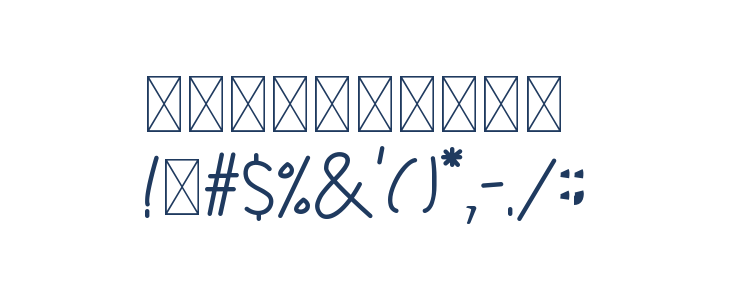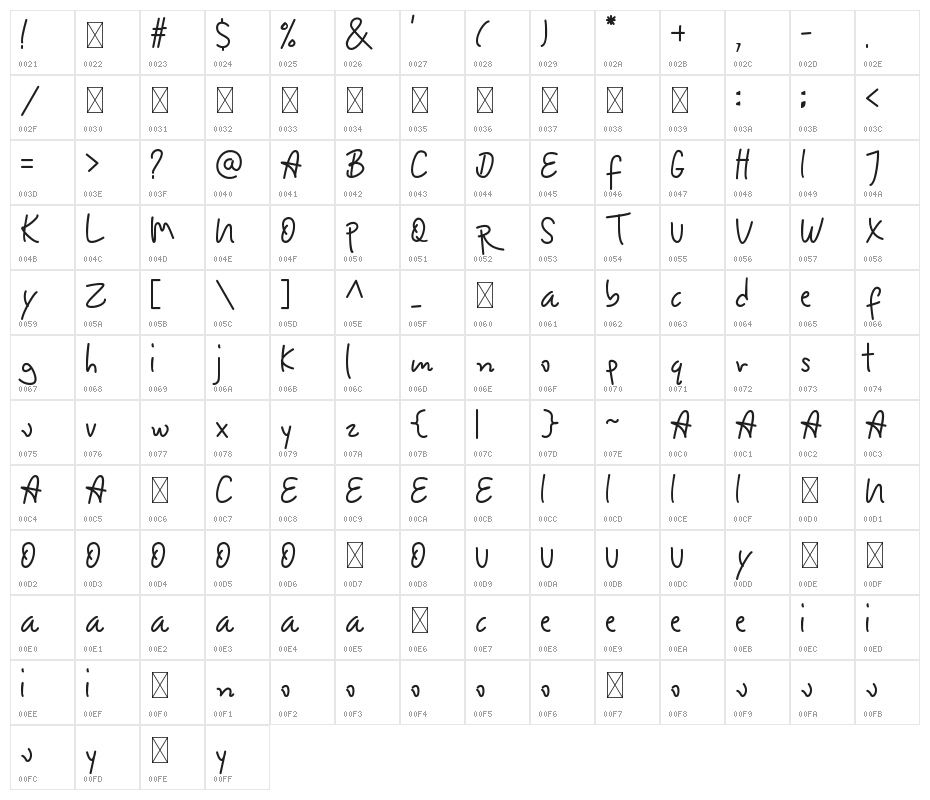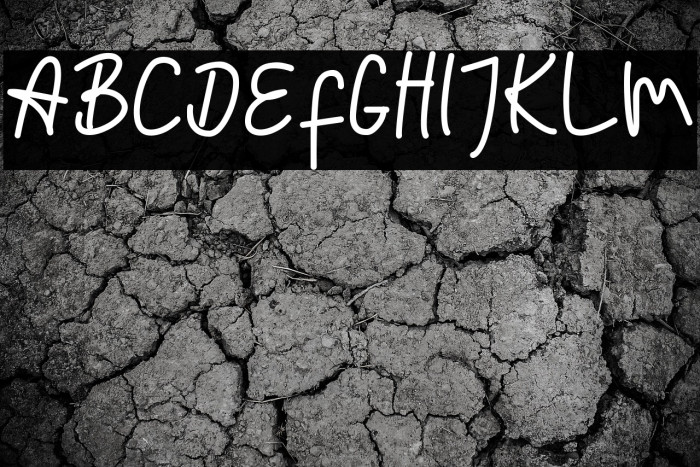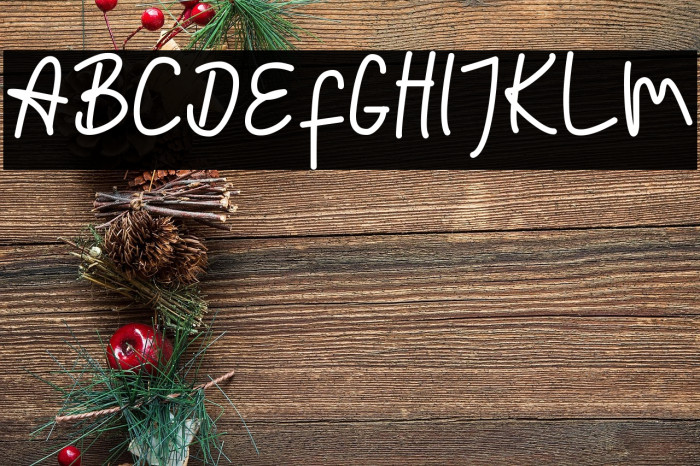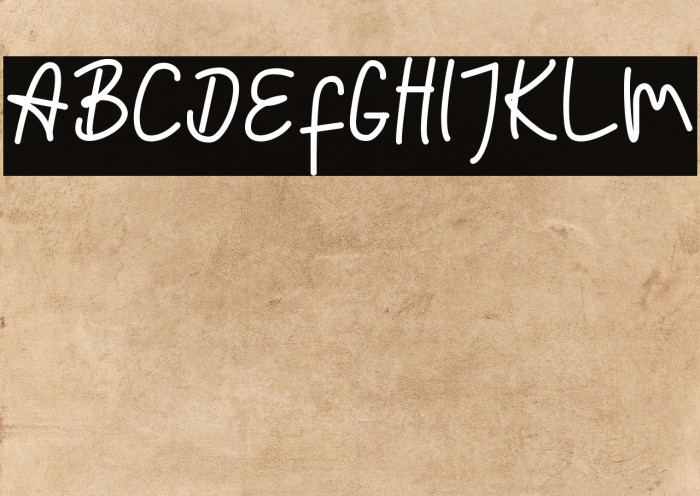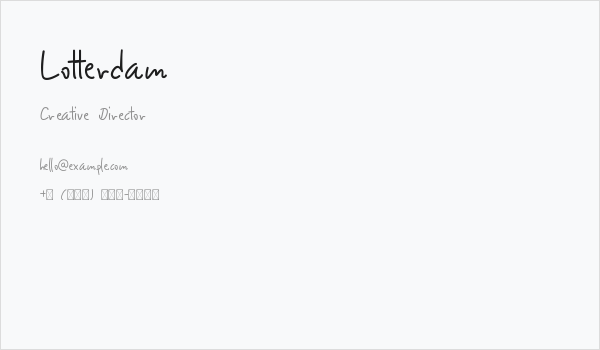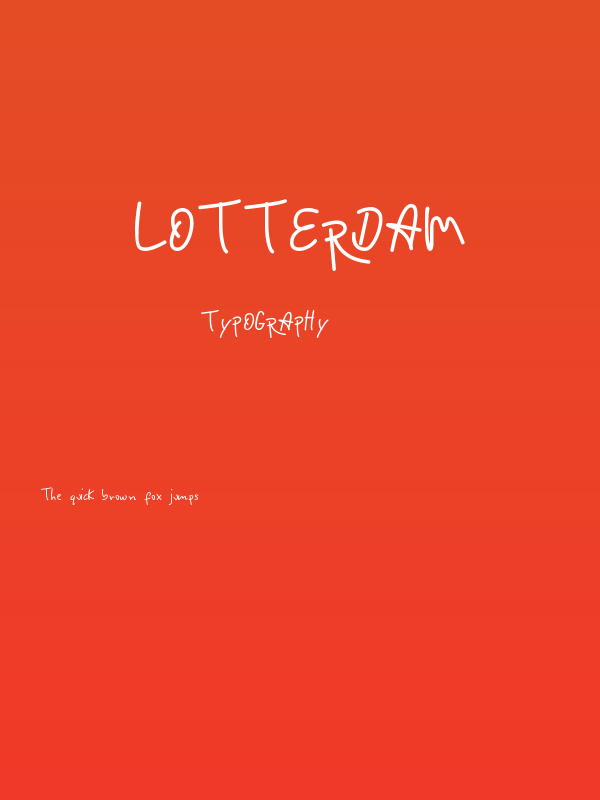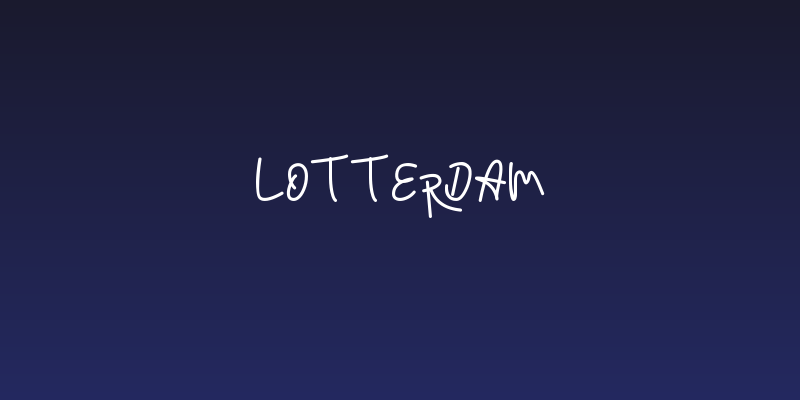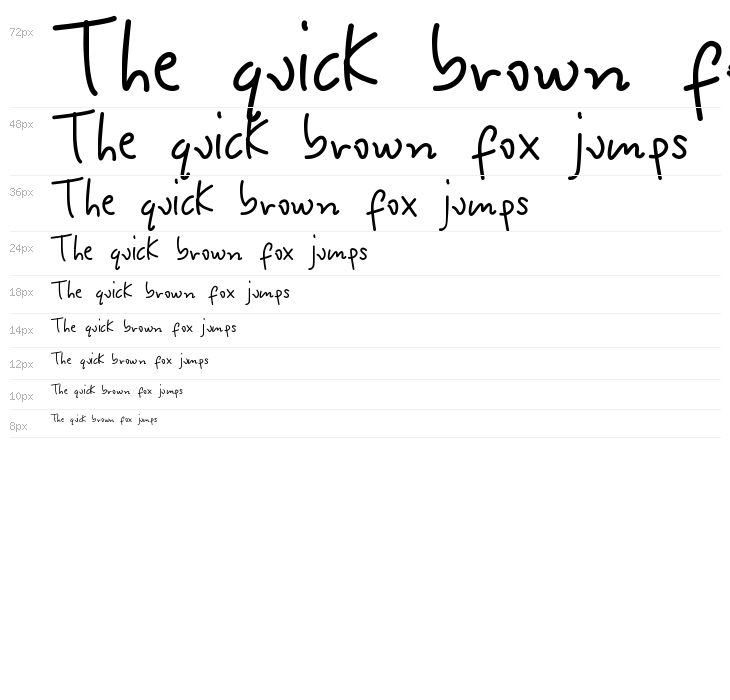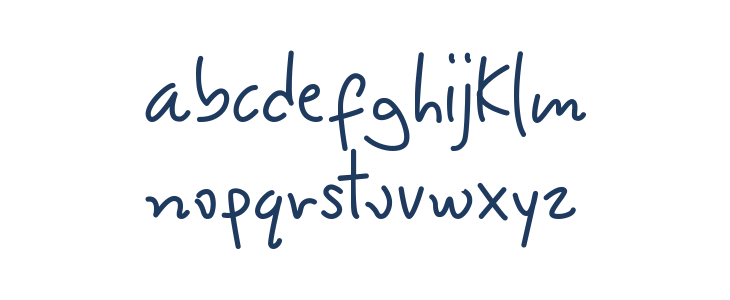
Lotterdam Font
Lotterdam Description
This font features a playful and casual handwritten style, characterized by its fluid and slightly irregular strokes. The uppercase letters are bold and expressive, while the lowercase letters maintain a consistent flow, adding to the font's informal charm. The characters exhibit a natural, hand-drawn appearance with varying line thickness, giving it a personal touch. The font's overall design is approachable and friendly, making it suitable for creative and informal applications. The special characters are integrated seamlessly, maintaining the same handwritten aesthetic.
Overall StyleCasual, Playful
Use CaseHeadlines, Logos, Informal Text
Proposed ProjectsIdeal for greeting cards, invitations, personal branding, and creative projects that require a personal touch.